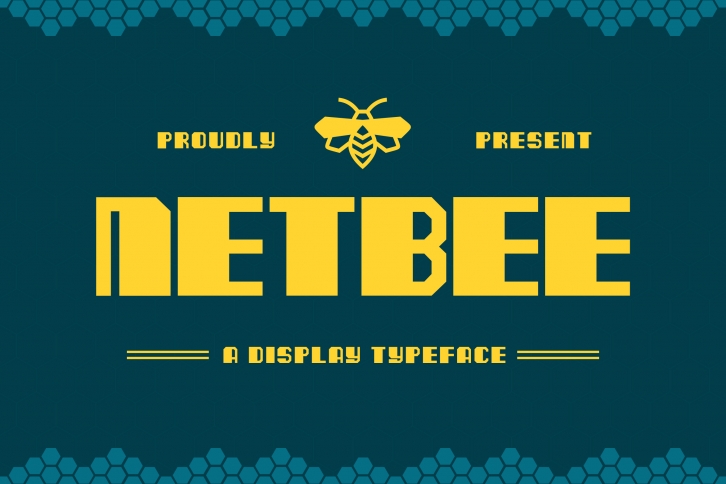
Netbee is a unique display typeface.
This font is sharp and looks similar to a bee.
Use this font to achieve an exquisite, yet subtle look and maximum versatility.